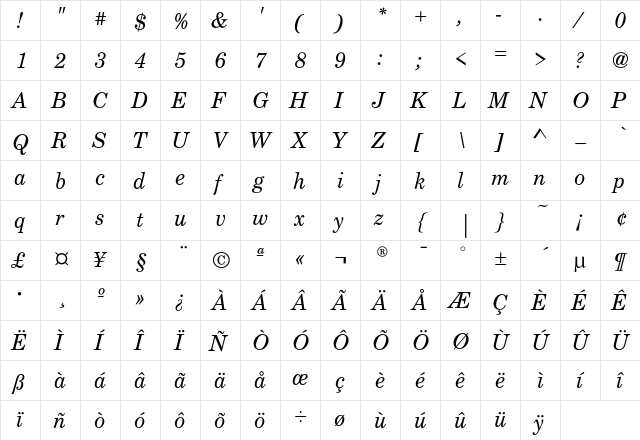
CenturySchoolbookEF RegIta
Design Context for CenturySchoolbookEF Typeface
CenturySchoolbookEF offers clean, dependable letterforms without strong stylistic allegiance, making it a practical choice for designers who need flexibility.